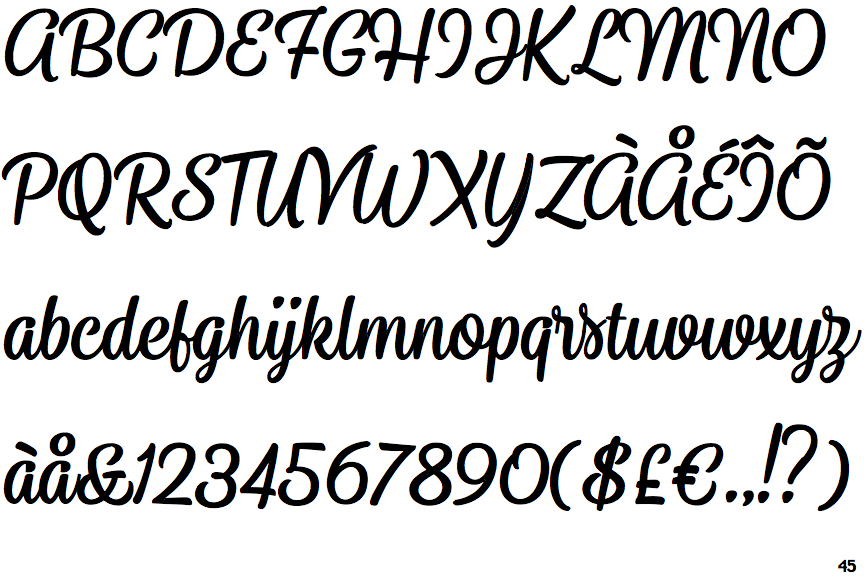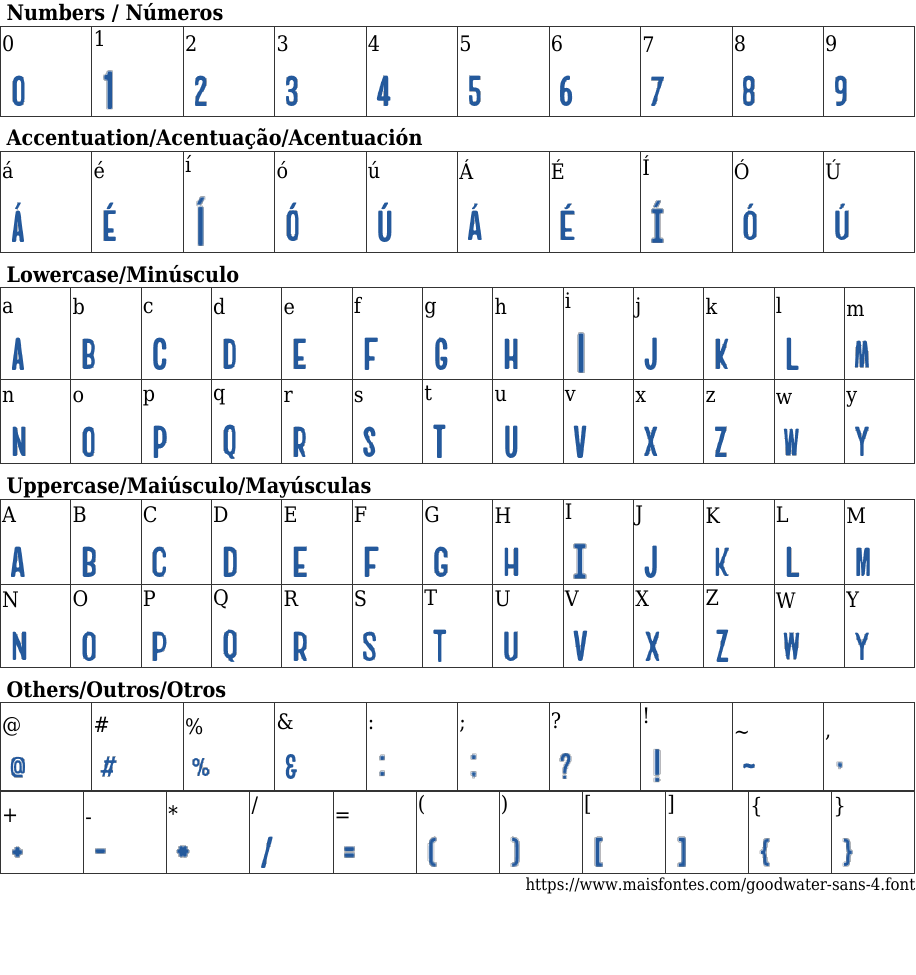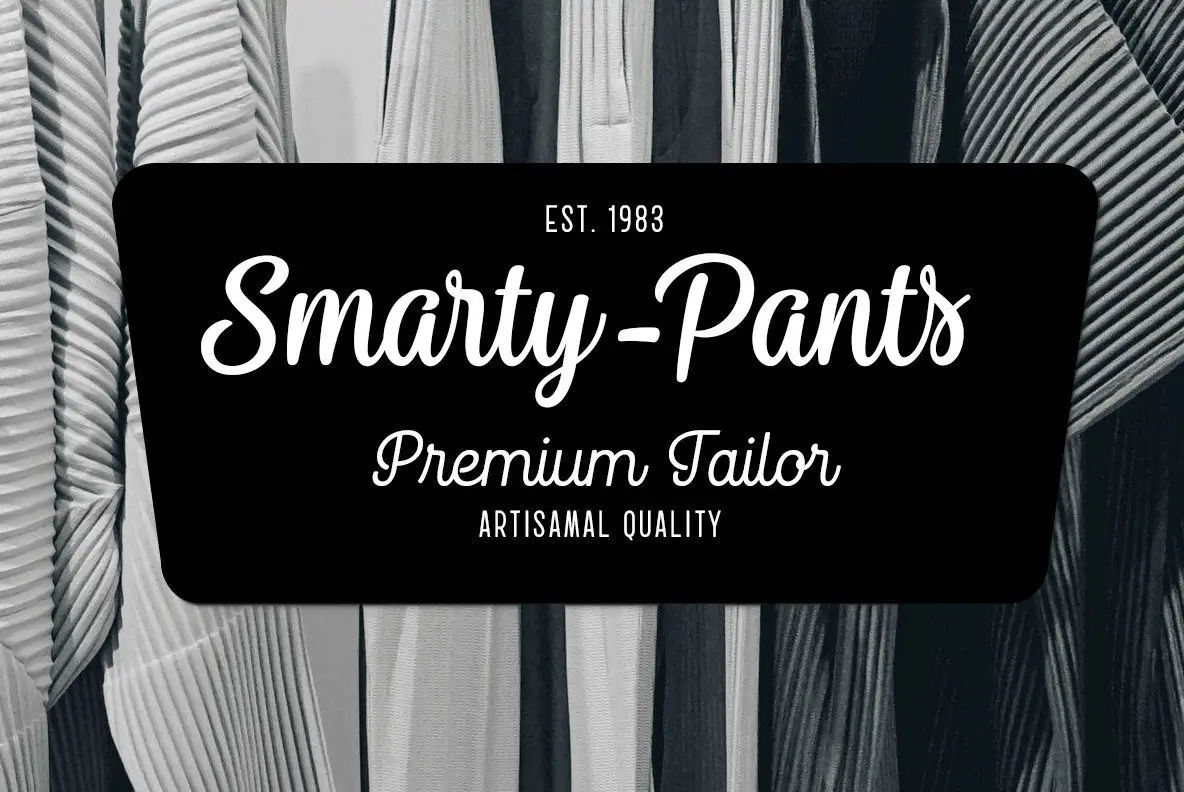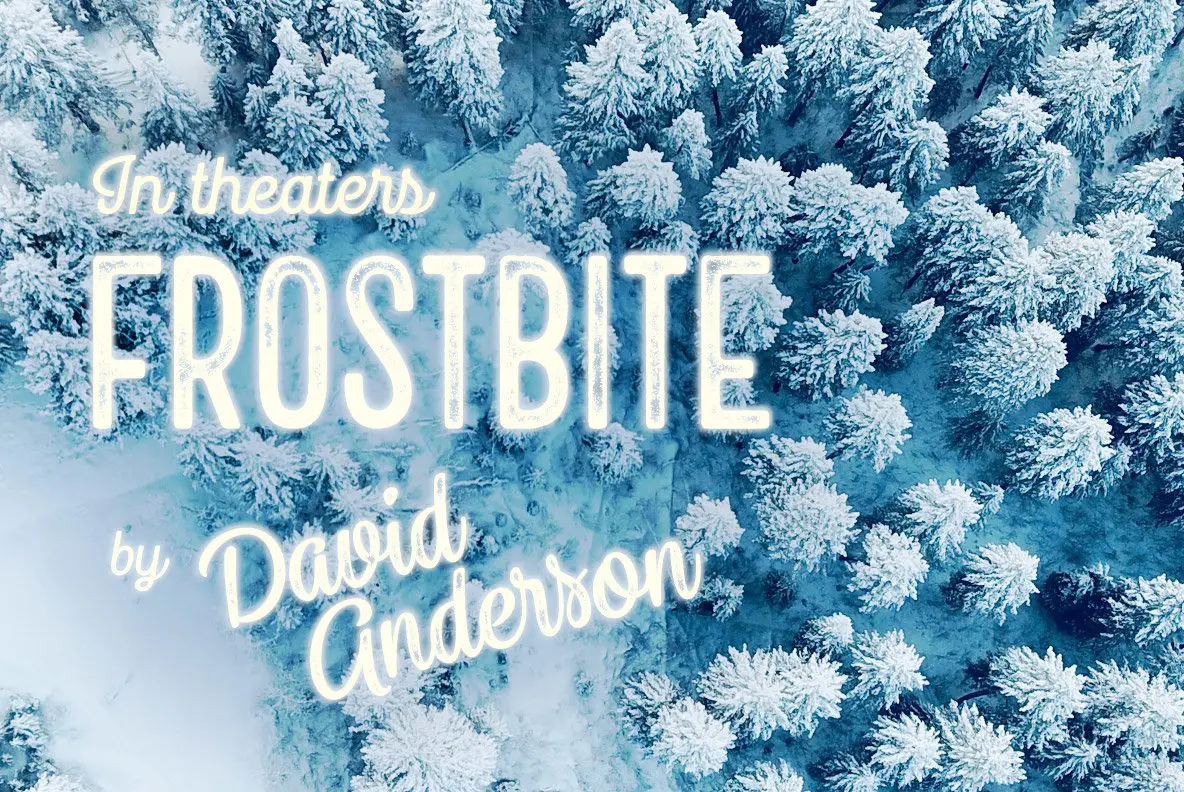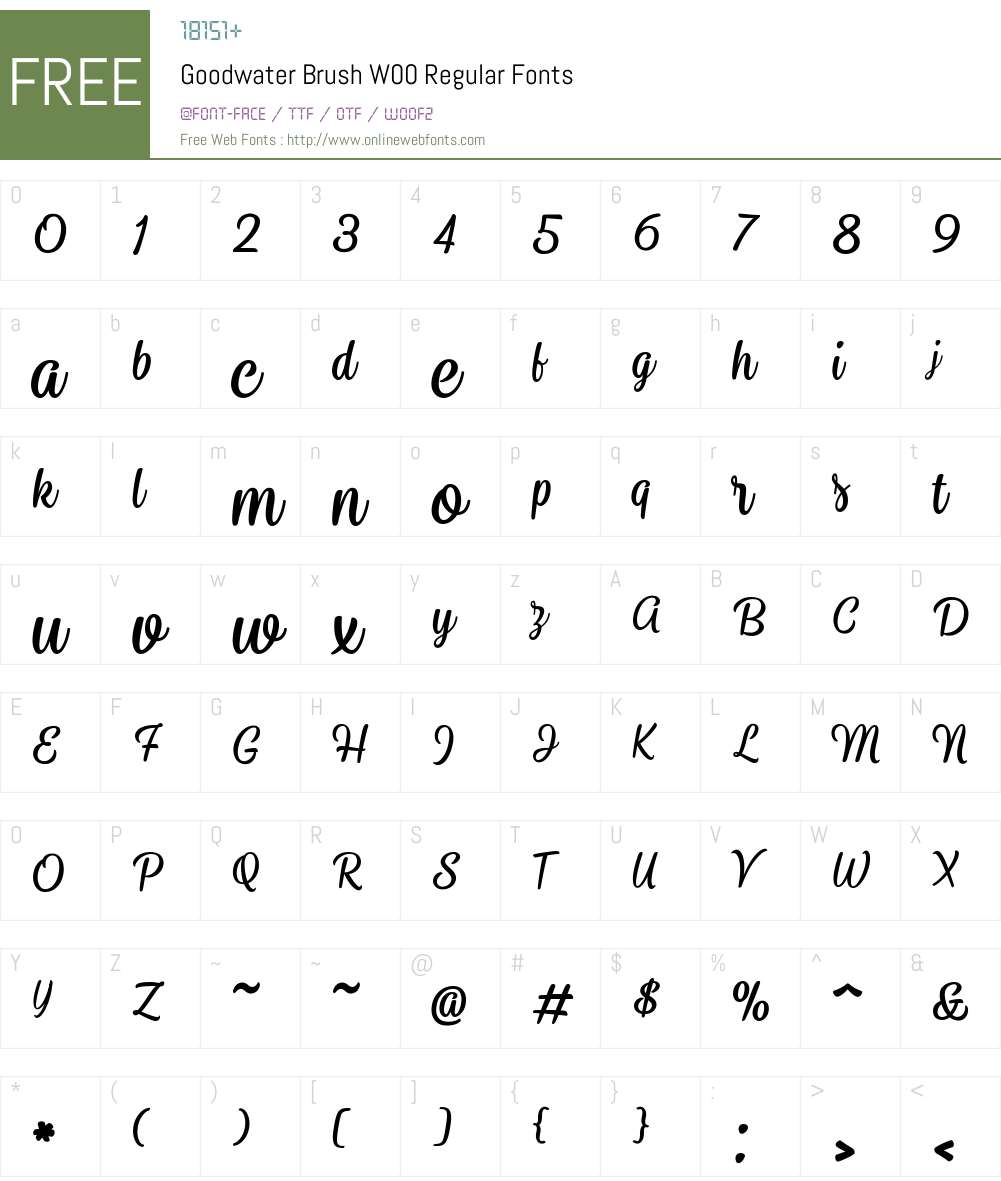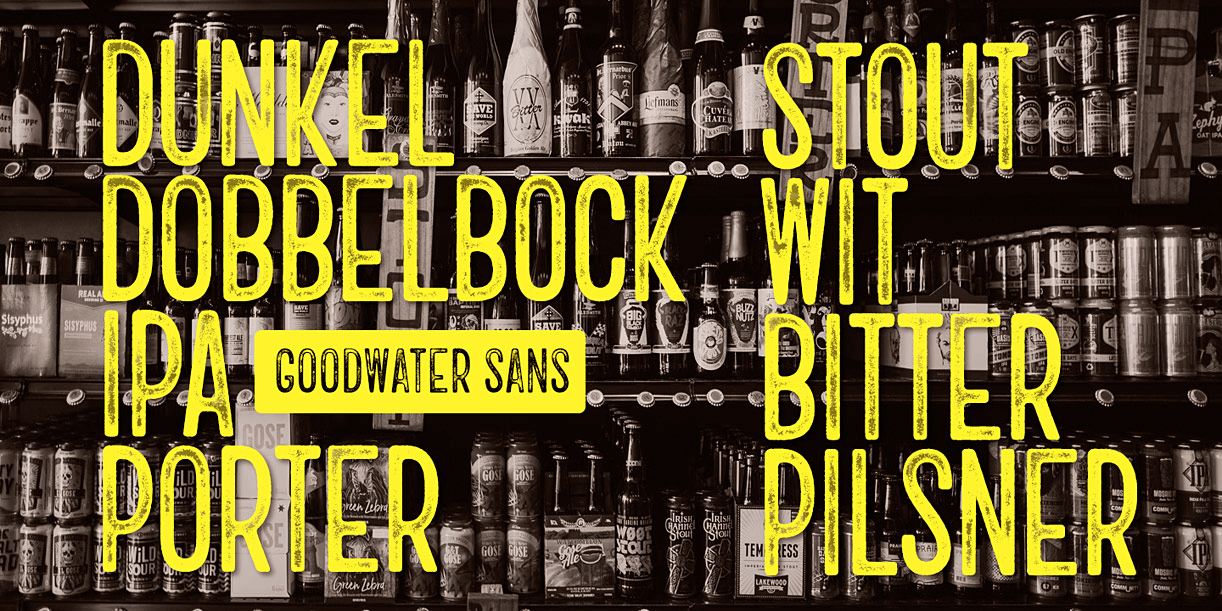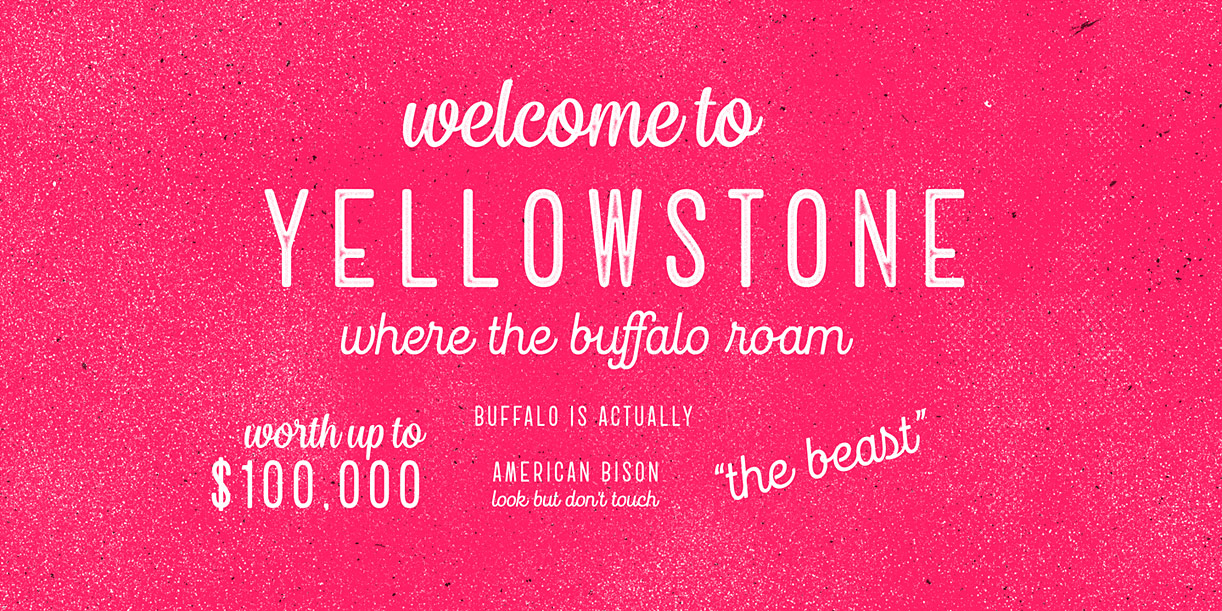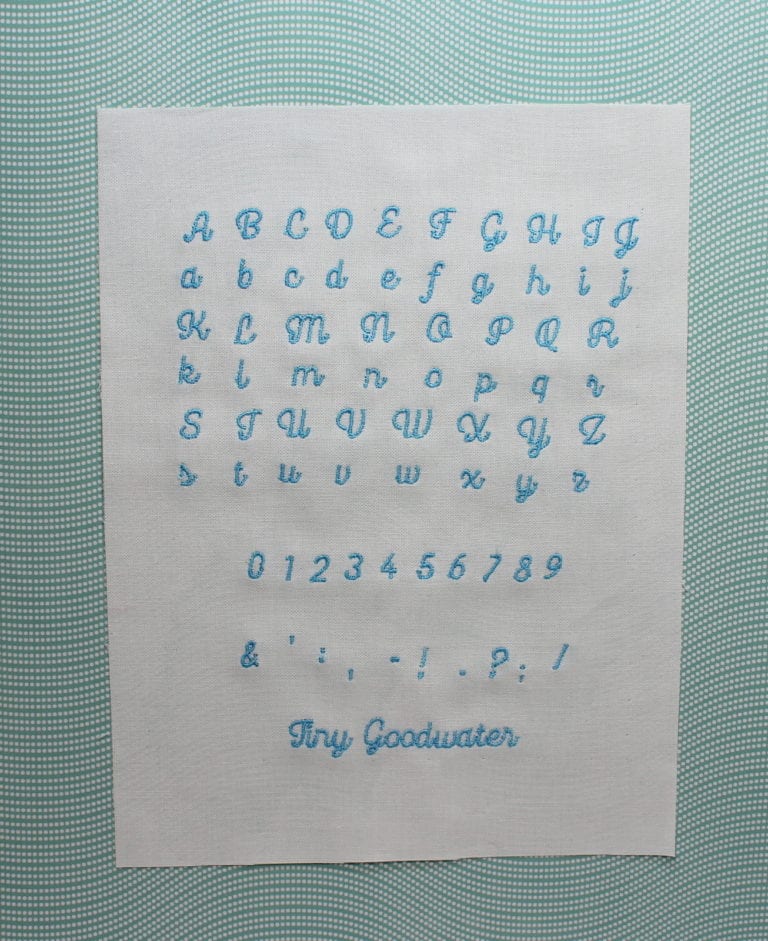
Goodwater Font . The download is completely free for personal. goodwater brush is the perfect font for all your fun designs. to learn more about the font and typography of the goodwater print sans 3 font, simply enter the text in the field below and click. buy & download goodwater brush regular, a font by fenotype. goodwater is a type collection of brush, script & sans font. Learn more about its features, similar fonts, and font pairing. The font subfamily is sans 3. buy & download goodwater sans2 regular, a font by fenotype. The font subfamily is sans 2. the goodwater script 2 font provided is for typography style knowledge only. Goodwater is an original collection of a brush, three weights of a monoline script and four weights of. goodwater sans 4 is the perfect font for all your fun designs. to learn more about the font and typography of the goodwater script 3 font, simply enter the text in the field below and click. goodwater is an original collection of a brush, three weights of a monoline script and four weights of condensed sans typeface.
goodwater is an original collection of a brush, three weights of a monoline script. goodwater sans 2 is the perfect font for all your fun designs. The font subfamily is sans 3. goodwater brush is the perfect font for all your fun designs. goodwater is an original collection of a brush, three weights of a monoline script and four weights of condensed sans typeface. the goodwater script 2 font provided is for typography style knowledge only. buy & download goodwater brush regular, a font by fenotype. goodwater sans 4 is the perfect font for all your fun designs. The font was designed by emil bertell. The download is completely free for personal.
Goodwater Font Goodwater is an original collection of a brush, three weights of a monoline script and four weights of. The font subfamily is sans 3. Learn more about its features, similar fonts, and font. Goodwater is an original collection of a brush, three weights of a monoline script and four weights of. The font subfamily is sans 2. goodwater is a type collection of brush, script & sans font. The download is completely free for personal. buy & download goodwater print sans4 regular, a font by fenotype. Goodwater is a great pack for any display use from online to logo and from headline to packaging. The font was designed by emil bertell. The font subfamily is sans 4. goodwater sans 4 is the perfect font for all your fun designs. goodwater sans 3 is the perfect font for all your fun designs. goodwater is an original collection of a brush, three weights of a monoline script and four weights of. goodwater is an original collection of a brush, three weights of a monoline script and four weights of condensed sans typeface. goodwater is an original collection of a brush, three weights of a monoline script and four weights of condensed sans typeface.
Tiny Goodwater Font · Oma’s Place Machine Embroidery Designs Goodwater Font The font was designed by emil bertell. The font subfamily is brush. Goodwater is a great pack for any display use from online to logo and from headline to packaging. goodwater is an original collection of a brush, three weights of a monoline script and four weights of. to learn more about the font and typography of the. Goodwater Font.
Understanding Spotify Making Music Through Innovation Goodwater Font to learn more about the font and typography of the goodwater script 3 font, simply enter the text in the field below and click. The font subfamily is sans 4. goodwater is a type collection of brush, script & sans font. goodwater is an original collection of a brush, three weights of a monoline script and four. Goodwater Font.
Goodwater Family Fonts Goodwater Font goodwater brush is the perfect font for all your fun designs. goodwater sans 3 is the perfect font for all your fun designs. The font was designed by emil bertell. goodwater is a type collection of brush, script & sans font. The font was designed by emil bertell. to learn more about the font and typography. Goodwater Font.
Goodwater by Joshua Diaz on Dribbble Goodwater Font Learn more about its features, similar fonts, and font pairing. Goodwater is a great pack for any display use from online to logo and from headline to packaging. goodwater is an original collection of a brush, three weights of a monoline script and four weights of. buy & download goodwater brush regular, a font by fenotype. The font. Goodwater Font.
Goodwater Font Siteoutsite Goodwater Font Goodwater is a great pack for any display use from online to logo and from headline to packaging. to learn more about the font and typography of the goodwater script 3 font, simply enter the text in the field below and click. buy & download goodwater sans2 regular, a font by fenotype. goodwater is an original collection. Goodwater Font.
Goodwater Typeface on Behance Goodwater Font goodwater is an original collection of a brush, three weights of a monoline script and four weights of condensed sans typeface. goodwater is a type collection of brush, script & sans font. The font subfamily is brush. Goodwater is an original collection of a brush, three weights of a monoline script and four weights of. The font subfamily. Goodwater Font.
Logotipo de goodwater Vector Premium Goodwater Font goodwater sans 4 is the perfect font for all your fun designs. Goodwater is a great pack for any display use from online to logo and from headline to packaging. The font was designed by emil bertell. buy & download goodwater print sans4 regular, a font by fenotype. The font subfamily is sans 4. Learn more about its. Goodwater Font.
Goodwater Gas Station at Henrietta Hill blog Goodwater Font Goodwater is an original collection of a brush, three weights of a monoline script and four weights of. goodwater is an original collection of a brush, three weights of a monoline script and four weights of condensed sans typeface. goodwater brush is the perfect font for all your fun designs. The font subfamily is sans 4. buy. Goodwater Font.
Goodwater Font Family by Fenotype Font Bros Goodwater Font buy & download goodwater sans2 regular, a font by fenotype. goodwater brush is the perfect font for all your fun designs. goodwater is an original collection of a brush, three weights of a monoline script and four weights of condensed sans typeface. The font was designed by emil bertell. Learn more about its features, similar fonts, and. Goodwater Font.
Catsy Light Font Style by Fenotype Font Bros Goodwater Font The font subfamily is brush. The font was designed by emil bertell. goodwater is a type collection of brush, script & sans font. Learn more about its features, similar fonts, and font pairing. the goodwater script 2 font provided is for typography style knowledge only. goodwater is an original collection of a brush, three weights of a. Goodwater Font.